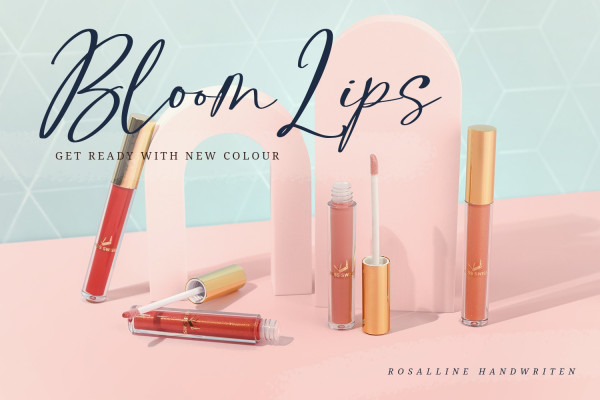
Rosalline Handwritten Font
Rosalline Handwritten Font is a lovely script font of which characteristics are the connections between letters to look like a naturally connected handwriting that leaves the impression of this font being organically, spontaneously written in order to add a firm personal touch. This font has various line thicknesses to show high letter contrasts to strengthen the font’s firm, clear impressions.
Besides, the letters’ height variety, meaning that some of the letters are higher than the others, makes Rossaline Handwritten more interesting and dynamic. However, the connected letters can cause difficulty to read in small text sizes, so that you need to be more careful to use this font by adjusting it to your needs. In addition, you may enjoy the available features here as well.
Rossaline Handwritten fits best for various design projects, such as brandings, quotes, invitations, name cards, greeting cards, printed products, merchandise, social media, etc. Find out more ways to use this font by taking a look at the font preview.